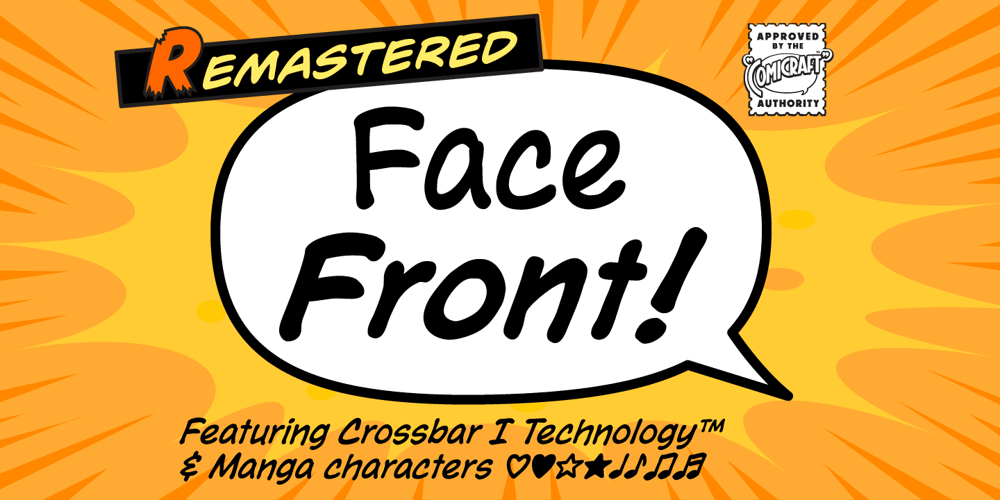
Face Front
Face Front font
Face Front Font Family was designed by John Roshell and published by Comicraft. Face Front contains 4 styles and family package options. FACE FRONT, True Believers, This is The Issue You’ve Been Waiting For! In response to requests from our Hawkeyed customers, we’re making this Super Team of fonts — which our fontmeister Assembled for the pages of THE AVENGERS — available for the first time!A handsome collection of characters that would put a Norse God to shame, FACE FRONT is composed of Earth’s Mightiest regular, italic, bold and bold italic faces — in UPPER and lower case. And now, these Living Legends can now be yours! Rick Jones not included!Remastered Face Front includes improved spacing and kerning, an upright Bold weight, Central European & Cyrillic characters,Crossbar I Technology™ to place it in exactly the right spots, plus hearts, stars & music notes for Manga lettering.